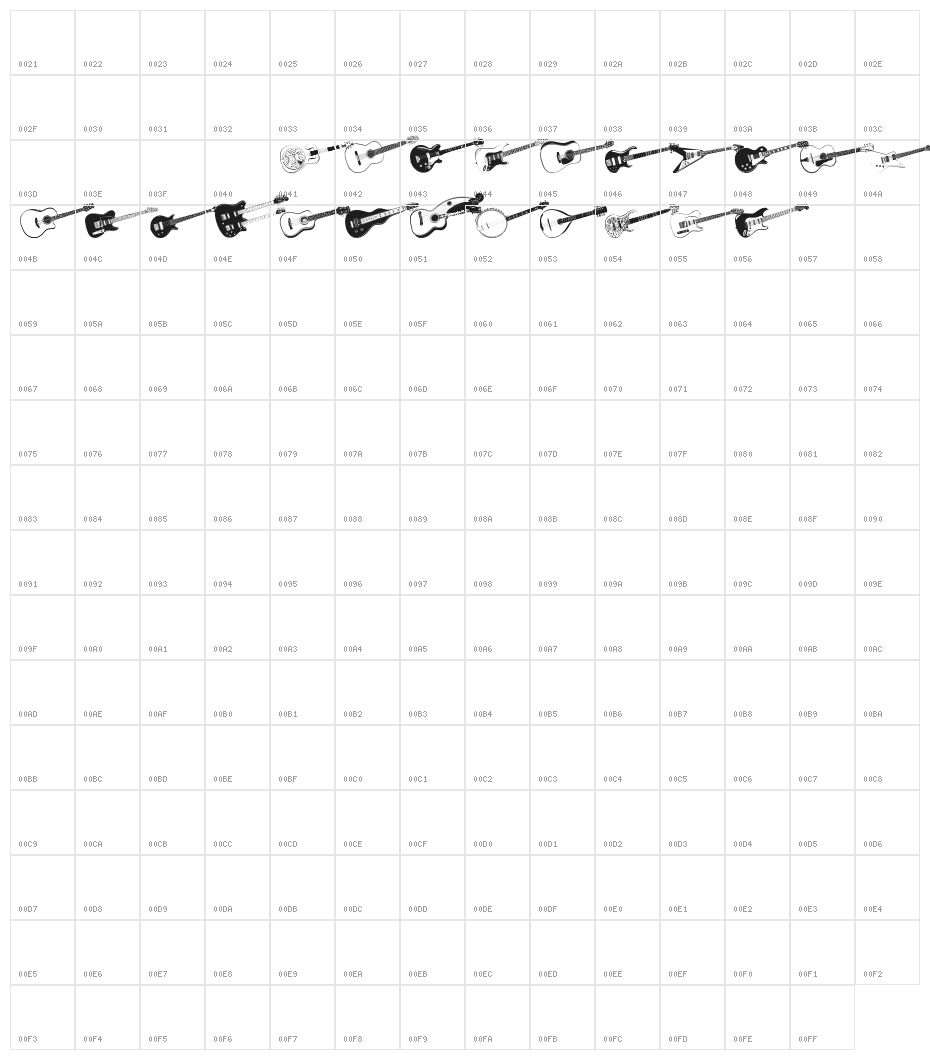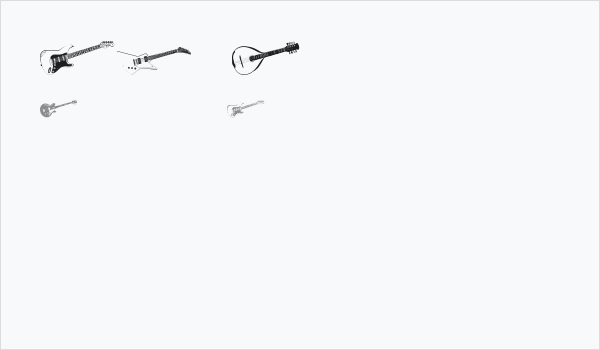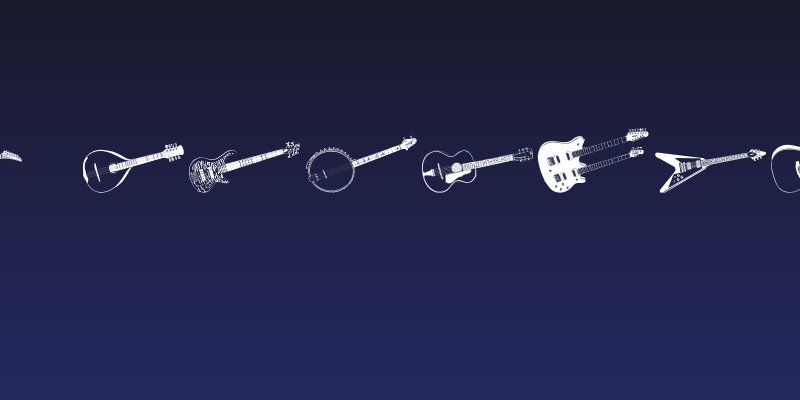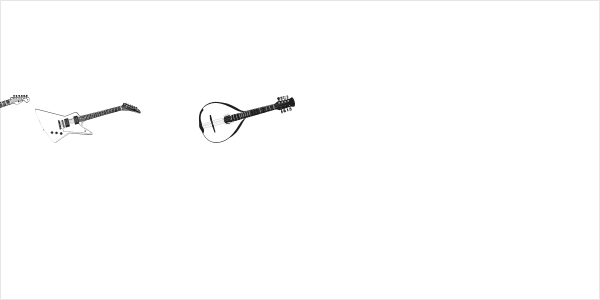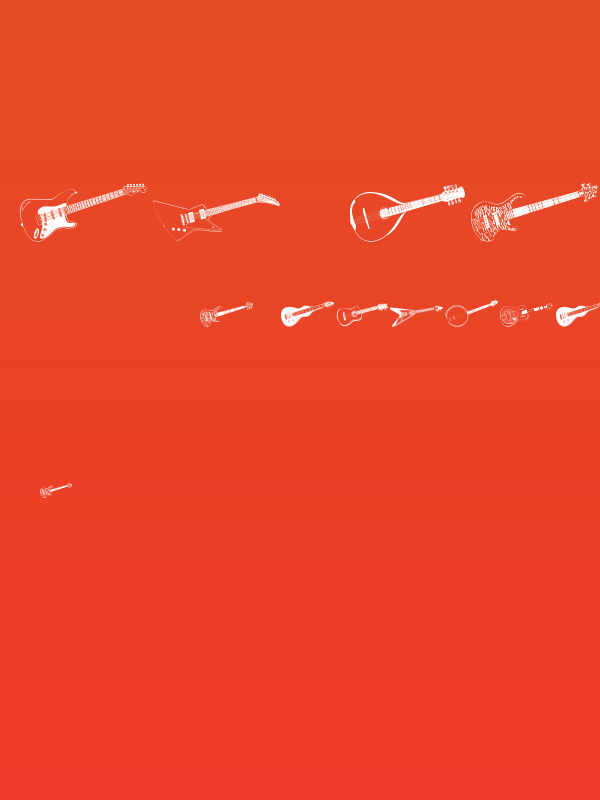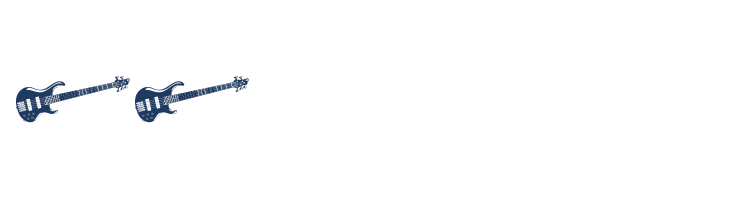
DJ Stringed Font
DJ Stringed Description
A decorative typeface where each character is represented by a detailed illustration of a stringed instrument, such as guitars and banjos, with varying styles and orientations.
| Overall Style | Decorative, Thematic, Playful |
| Use Case | Logos, Headlines, Themed graphics |
| Proposed Projects | Music event posters, band logos, album covers, themed invitations, educational materials about music. |